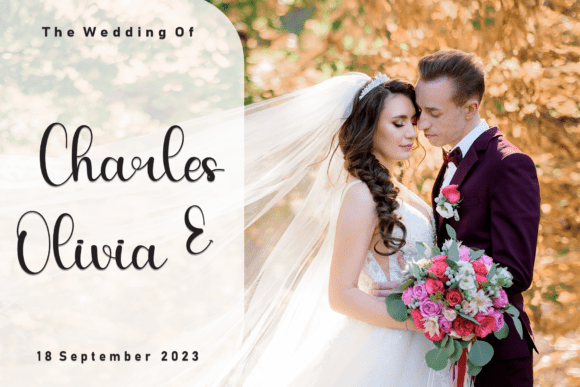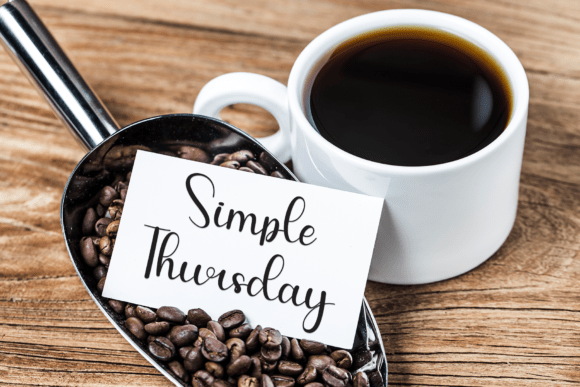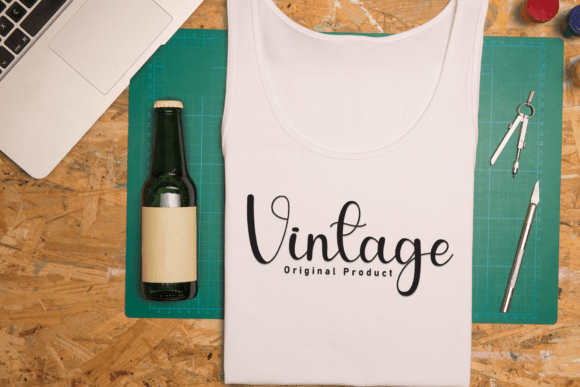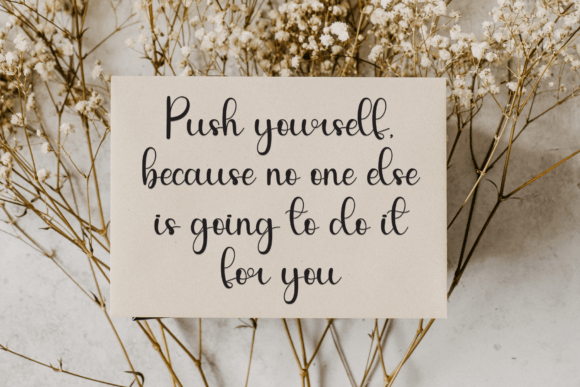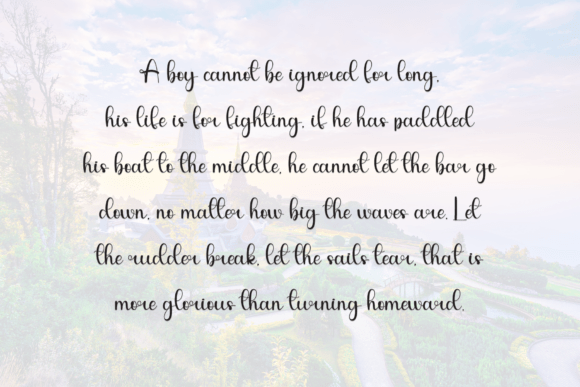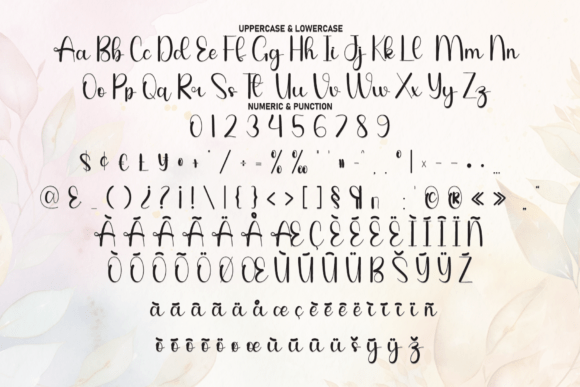
Discover the Enchanting Font: Elevate Your Designs with Elegance and Charm
Are you searching for a font that embodies the essence of freshness, elegance, and delicate charm? Look no further than the Enchanting Font. This stylish handwritten script font is designed to radiate a sense of renewal, making it perfect for a wide range of design projects, from invitations and branding to seasonal designs and more.
The Characteristics of Enchanting Font
The Enchanting Font boasts flowing strokes and graceful curves that give it a unique, elegant appearance. Its handwritten nature adds a soft, personal touch to any project, making it ideal for designers and crafters who want to create something truly special. Whether you’re working on a wedding invitation, a brand identity, or a seasonal greeting card, this font is sure to impress.
Perfect for Invitations and Branding
Invitations and branding materials require a font that exudes sophistication and style. The Enchanting Font delivers on both counts, adding a touch of luxury and refinement to any design. Its elegant appearance makes it perfect for:
Seasonal Designs and More
The Enchanting Font is not just limited to invitations and branding. Its fresh and delicate charm makes it perfect for seasonal designs, such as:
- Christmas and holiday cards
- Easter and spring-themed designs
- Birthday and anniversary invitations
- Quote and typography posters
Why Choose the Enchanting Font?
With so many fonts available, why choose the Enchanting Font? Here are just a few reasons:
- Unique and elegant design: The Enchanting Font boasts a distinctive, handwritten style that sets it apart from other fonts.
- Versatile: This font can be used for a wide range of design projects, from invitations and branding to seasonal designs and more.
- Easy to read: Despite its elegant appearance, the Enchanting Font is easy to read, making it perfect for body text and headlines.
- Personal touch: The handwritten nature of this font adds a soft, personal touch to any design, making it perfect for crafters and designers who want to create something truly special.
Tips for Using the Enchanting Font
To get the most out of the Enchanting Font, here are a few tips:
- Pair with contrasting fonts: Pair the Enchanting Font with contrasting fonts, such as bold sans-serif fonts, to create visual interest and hierarchy.
- Experiment with colors: The Enchanting Font looks great in a range of colors, from soft pastels to rich jewel tones. Experiment with different colors to find the perfect combination for your design.
- Use for headlines and titles: The Enchanting Font is perfect for headlines and titles, where its elegant appearance can really shine.
The Enchanting Font is a stylish and elegant handwritten script font that is perfect for designers and crafters who want to add a touch of freshness and charm to their designs. With its flowing strokes, graceful curves, and soft, personal touch, this font is sure to impress. Whether you’re working on invitations, branding, seasonal designs, or more, the Enchanting Font is a great choice.